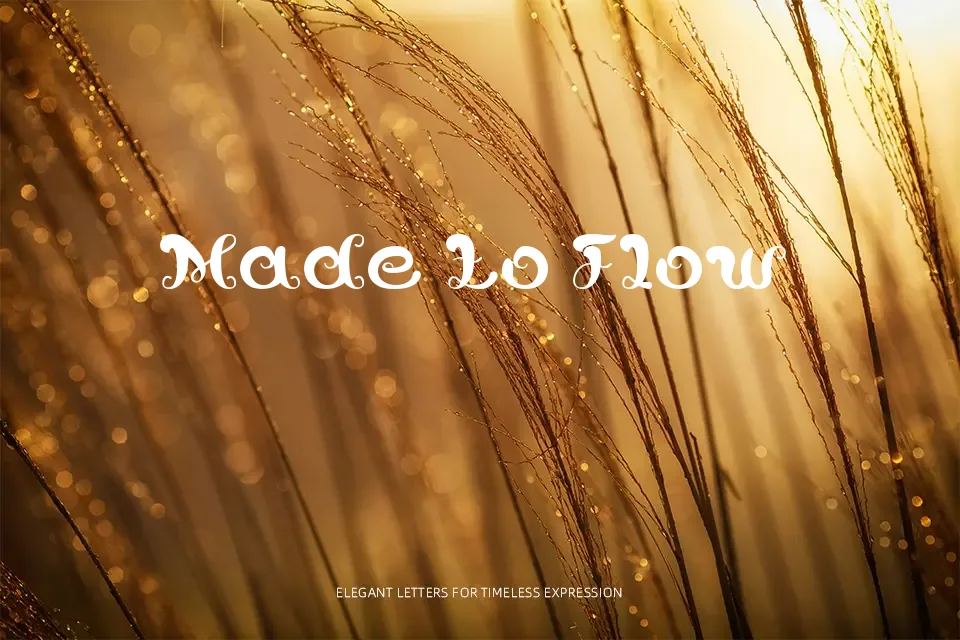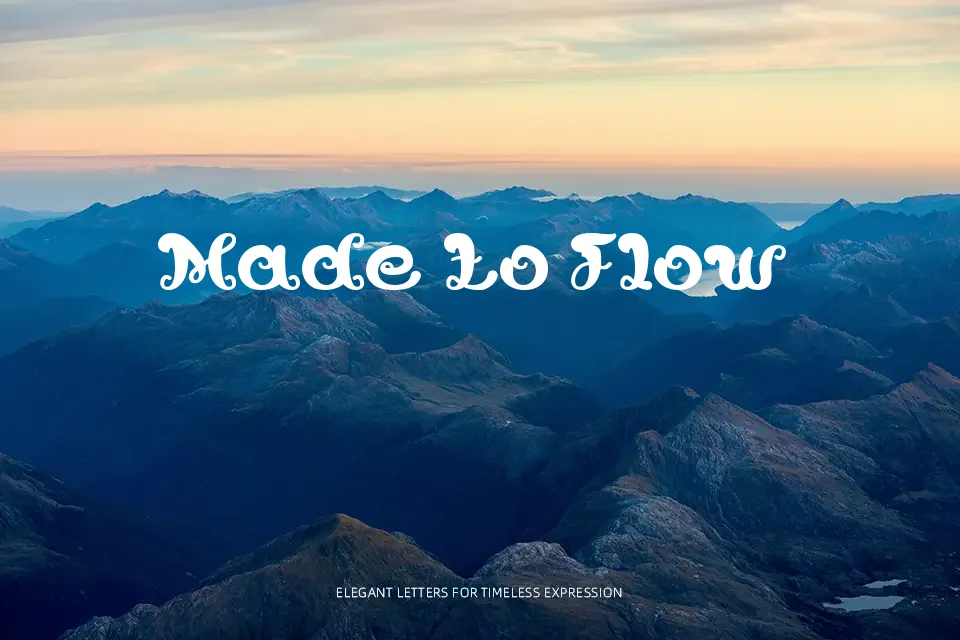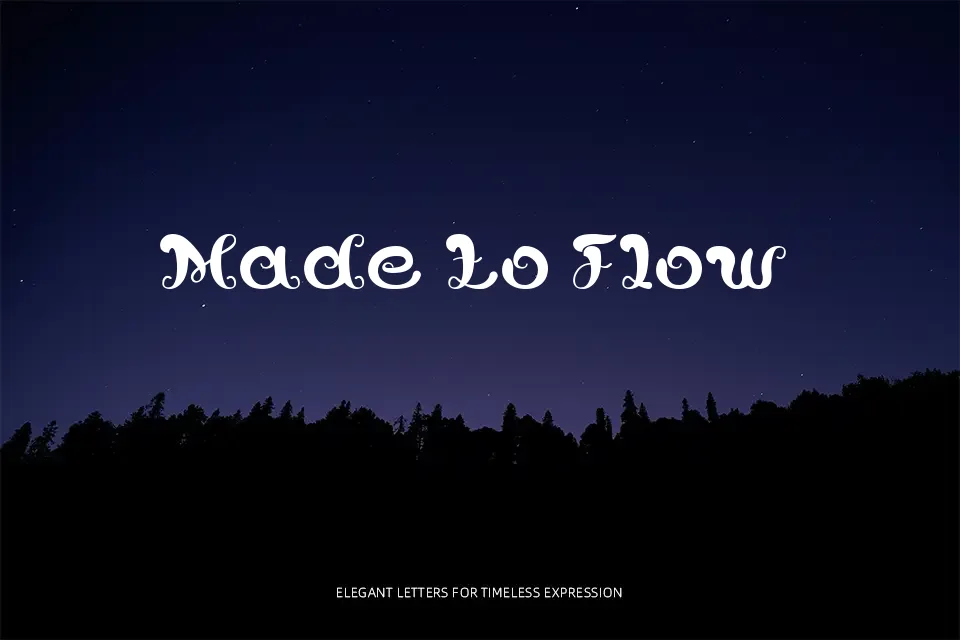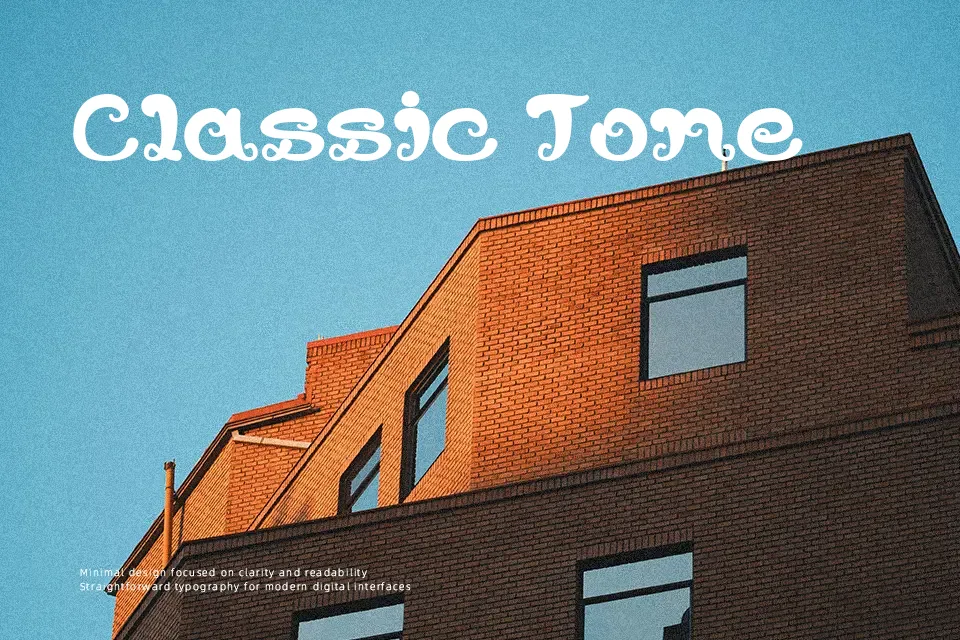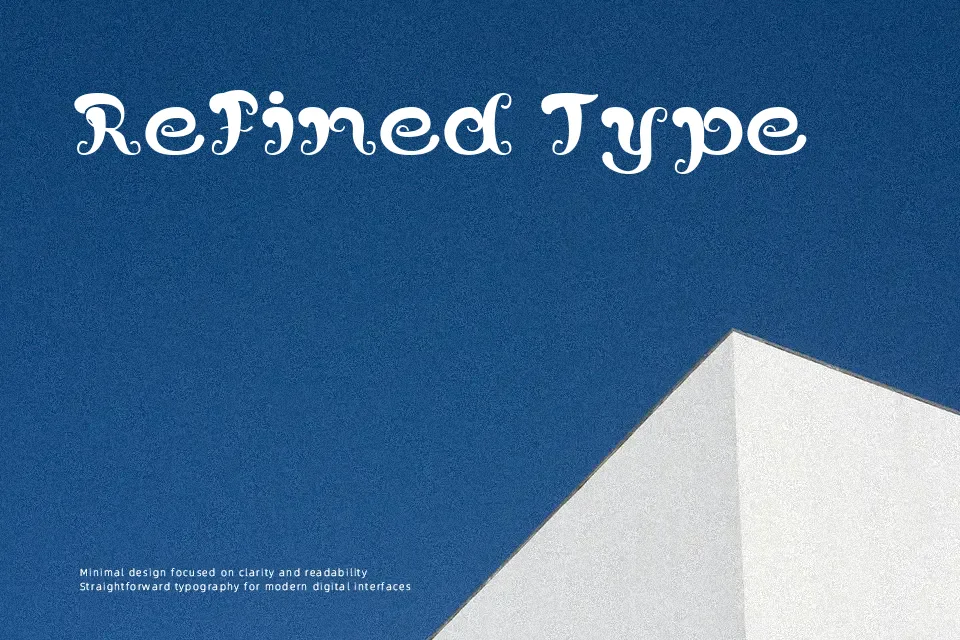
Bunga Melati Putih Font
Bunga Melati Putih is a casual script-style display font with long, looping strokes, generous curves, and relaxed spacing that makes words feel airy rather than cramped. The letterforms lean into a handwritten look, with playful terminals and some irregular rhythm that adds character but can reduce legibility at very small sizes. It works well for short headlines, name marks, and typographic compositions on posters, social media posts, and wedding or romantic-themed graphics where personality matters more than strict formality. Compared with tighter, calligraphic scripts, this design feels looser and more spontaneous, which is charming for expressive titles but less suitable for dense paragraphs or highly corporate layouts.
short romantic headlines on posters and cards
names and phrases in wedding or engagement graphics
expressive quotes and captions on social media images
long body text or paragraphs
interfaces or documents that demand strict readability
very formal corporate reports or presentations
Perfect for headline, invitation, and poster, with a artistic and display style.